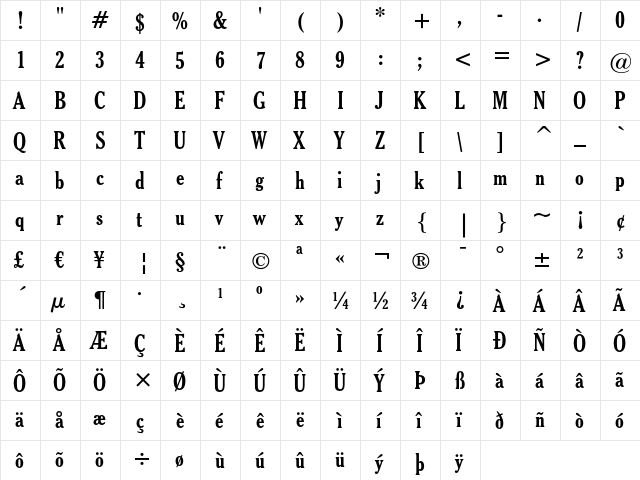
Cheltenham Bold Condensed
Design Context for Cheltenham Typeface
Cheltenham offers clean, dependable letterforms without strong stylistic allegiance, making it a practical choice for designers who need flexibility. Its bold stroke weight gives it real presence on the page. Its narrow stance lets it pack a punch even in space-constrained designs.
Pro Tip: Pair Cheltenham with a font of contrasting weight or personality to build a more expressive typographic hierarchy.